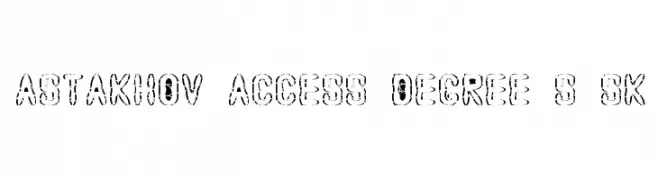
( André Harabara - harabara.carbonmade.com/ )
A bold, futuristic font with angular, geometric characters.
( Anita Jürgeleit - www.anitajuergeleit.de )
A bold, modern sans-serif font with clean, geometric lines.
( Archetype )
A bold, oblique font with a dynamic and modern style.
( Archetype )
A bold, geometric font with rounded edges and a modern aesthetic.
( Archetype )
A bold, geometric font with strong lines and uniform stroke width.
( Archetype )
A modern, rounded sans-serif font with balanced spacing and clear readability.
( Archetype )
A playful, modern font with rounded edges and a smooth flow.
( Archetype )
A bold, geometric font with angular, blocky characters.
( Ardyana Types - Ardyana Putra - www.ardyanatypes.com )
A cursive, handwritten-style font with elegant, flowing characters.
( Ardyana Types - Ardyana Putra - www.ardyanatypes.com )
An elegant, flowing script font with smooth, cursive strokes and graceful curves.
( Ari Koivunen )
A playful, bold font with whimsical curves and a cartoonish style.
( Arief Pribadi )
A casual, handwritten font with a friendly and approachable style.
( Arief Pribadi )
A playful, bold handwritten font with rounded letterforms.
( Arifin Studio )
A graceful, handwritten script font with thin, flowing strokes.
( Arifin Studio )
A whimsical, handwritten font with thin, elongated strokes and a casual elegance.
( Artspace Design - Mas Mujib - www.behance.net/artspacedec21c )
A playful and dynamic script font with fluid, connected letterforms.
( Artspace Design - Mas Mujib - www.behance.net/artspacedec21c )
A bold, modern sans-serif font with geometric lines and uniform thickness.
( Artspace Design - Mas Mujib - www.behance.net/artspacedec21c )
A geometric and modern typeface with clean lines and angular shapes.
( Artspace Design - Mas Mujib - www.behance.net/artspacedec21c )
A bold, modern font with geometric structure and high contrast.
( Atila Milanio - atilamilanio.com )
A bold, decorative font with intricate, hand-drawn patterns in each character.
( Atjcloth Studio - Hanif Syahputra - creativemarket.com/Atjcloth?u=Atjcloth )
A bold, brush-stroke style font with dynamic, hand-painted letterforms.
( Atjcloth Studio - Hanif Syahputra - creativemarket.com/Atjcloth?u=Atjcloth )
A delicate, flowing script font with thin lines and graceful curves.
( Aulia Al Farabi )
A bold, cursive font with a smooth, flowing style.